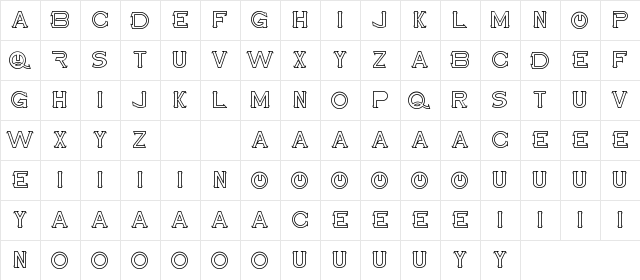
Maxwell Leonard Demo Outline Regular
| Foundry | Edric Studio |
| Designer | Muhammad Lukman F & Suci Anita |
Design Context for Maxwell Leonard Demo Outline Typeface
Maxwell Leonard Demo Outline is built around its visual character rather than neutral utility — its distinctive forms are designed to make an impression at display sizes.
Font Pairing: Pair with a clean neutral sans-serif for body copy to let Maxwell Leonard Demo Outline's character lead without overwhelming the composition.
Pro Tip: Use Maxwell Leonard Demo Outline exclusively at display sizes — it was designed to be seen, not read at length. Let a neutral companion handle body copy.